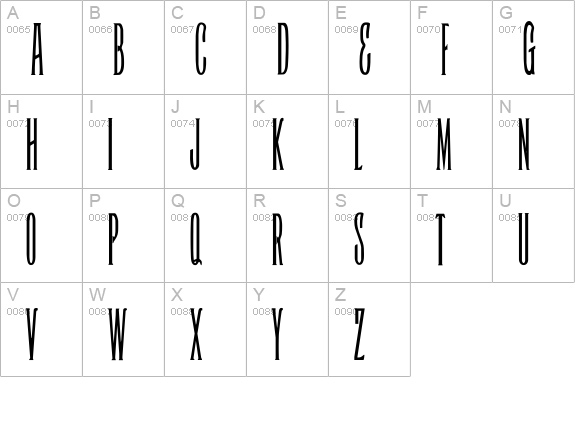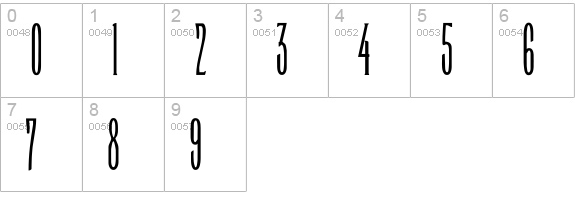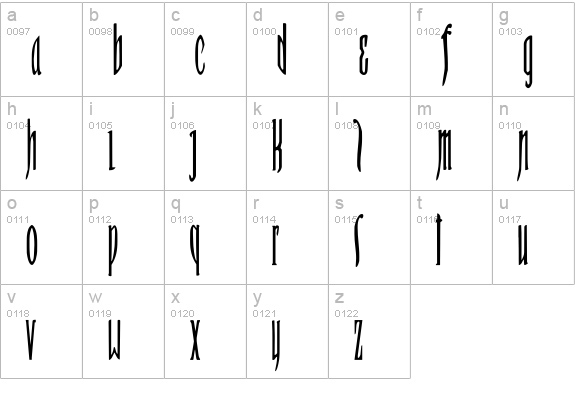
Rammstein Font Details
Introducing the mesmerizing Rammstein font, a bold and captivating typeface that effortlessly commands attention. With its striking and edgy letterforms, this font boasts a unique fusion of modernity and intensity, making it the perfect choice for any project that demands a powerful and unforgettable visual impact. The Rammstein font exudes a sense of raw energy and strength, inspired by the legendary German industrial metal band of the same name. Each letter is meticulously crafted to embody the band's iconic aesthetic, resulting in a font that is both visually striking and evocative of their powerful music. With its robust and commanding presence, the Rammstein font is an ideal choice for a wide range of creative endeavors. Whether you're designing album covers, concert posters, or even just adding a touch of rebelliousness to your personal projects, this font is guaranteed to make a lasting impression. And the best part? The Rammstein font is freely available for download exclusively at FontsMarket.com. We believe in making quality fonts accessible to all, allowing designers, musicians, and creatives from all walks of life to express themselves freely and unleash their creativity without any limitations. So, don't miss out on this incredible opportunity to harness the power of the Rammstein font in your designs. Download it today, and let its bold and dynamic presence elevate your projects to new heights. Unleash your creativity with the Rammstein font, now available for free at FontsMarket.com.